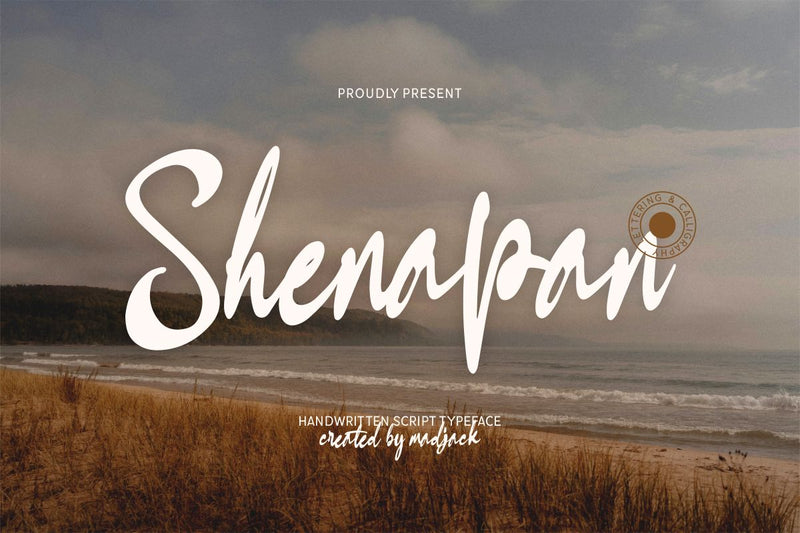
Shenapan Script
Shenapan Script is an elegant and flowing handwritten font. It has a PUA code which means you can access all the glyphs and curves easily! It has a varied baseline, smooth lines, beautiful glyphs, and stunning alternates. It maintains a classy calligraphy influence but still feels contemporary and fresh. Fall in love with this font and take your projects to the next level!